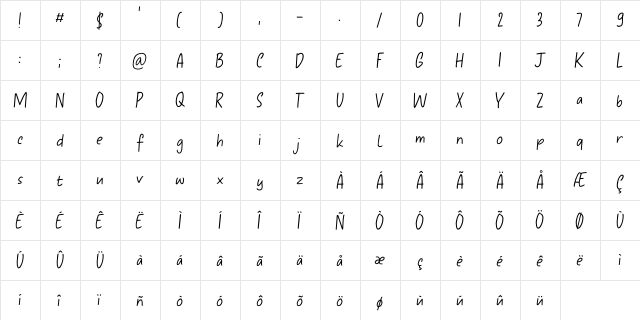
Yasuragi DEMO Regular
| Foundry | David Kerkhoff |
| Designer | David Kerkhoff |
Design Context for Yasuragi DEMO Typeface
Yasuragi DEMO takes a measured approach to typography — its balanced proportions and neutral character make it a reliable workhorse for both digital and print work.